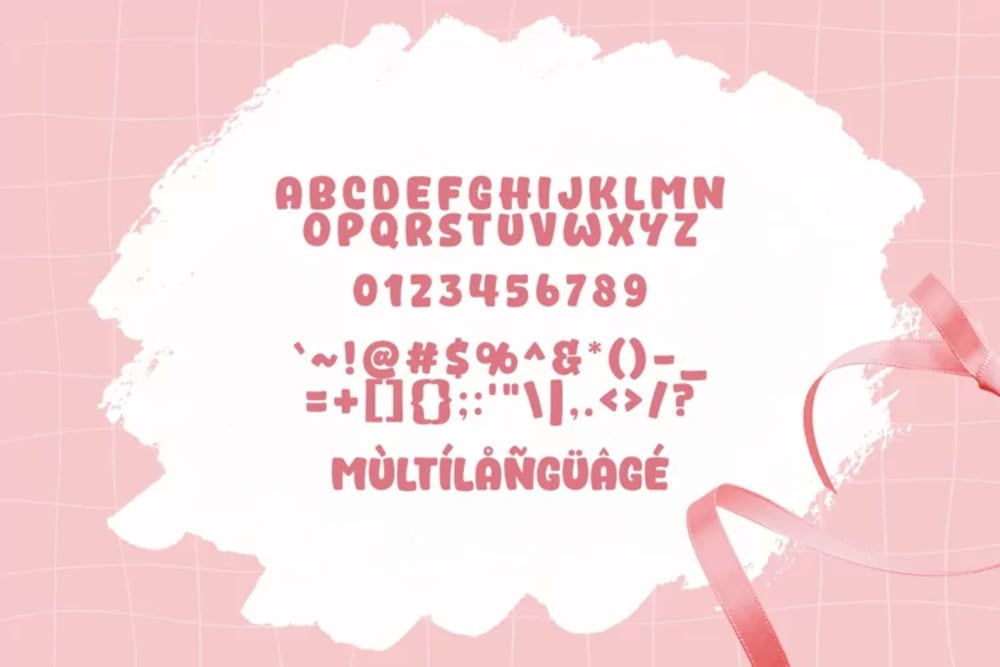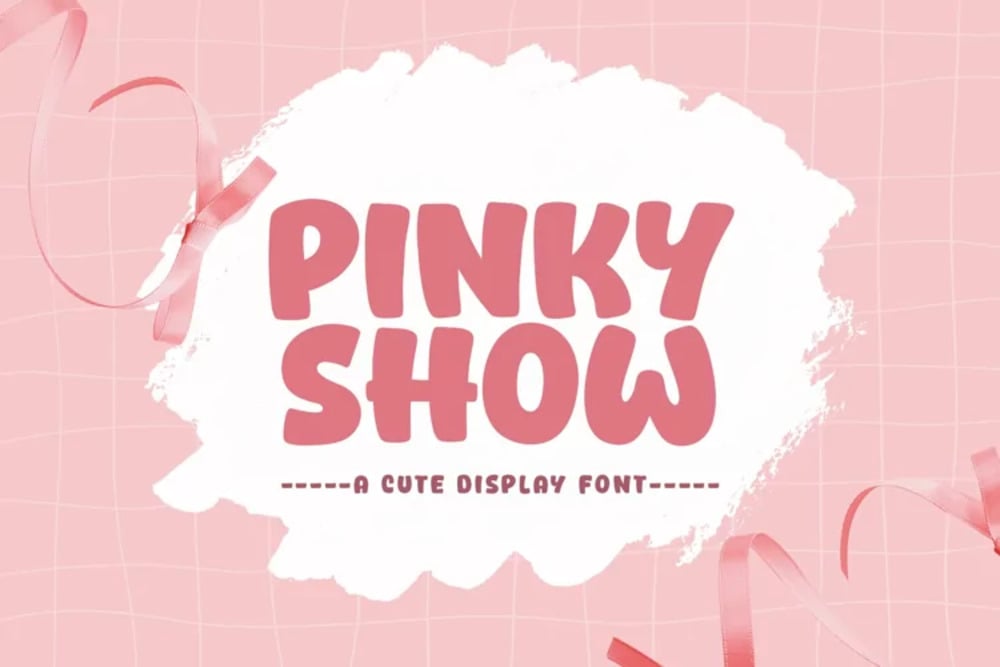
Pinky Show Font
Pinky Show is a bold and playful display font with a lively personality. Its rounded edges, smooth curves, and quirky letterforms create a fun and energetic vibe, perfect for branding, posters, and children’s designs. With a mix of charm and modern flair, Pinky Show adds a touch of excitement and creativity to any project, making it truly stand out.